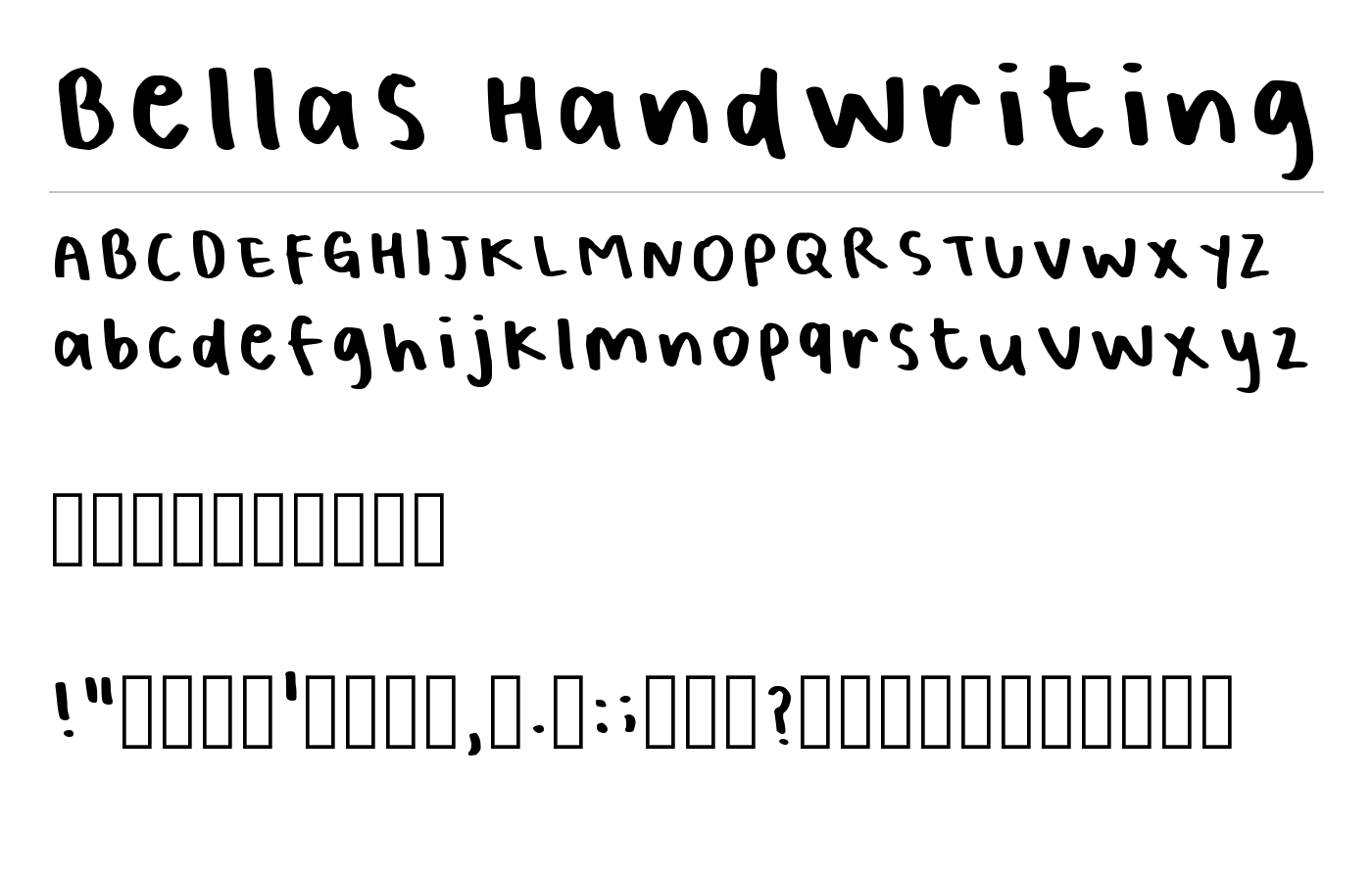
Bellas Handwriting is a casual, playful sans-serif font that mimics natural handwriting with its rounded, friendly letterforms and moderate x-height. It offers a warm and approachable feel, making it perfect for projects that require a personal touch, such as invitations, children's materials, or informal branding. Its clean, legible style works well for both headlines and short texts where a relaxed, human vibe is desired.
Bellas Handwriting Font
About Bellas Handwriting Font